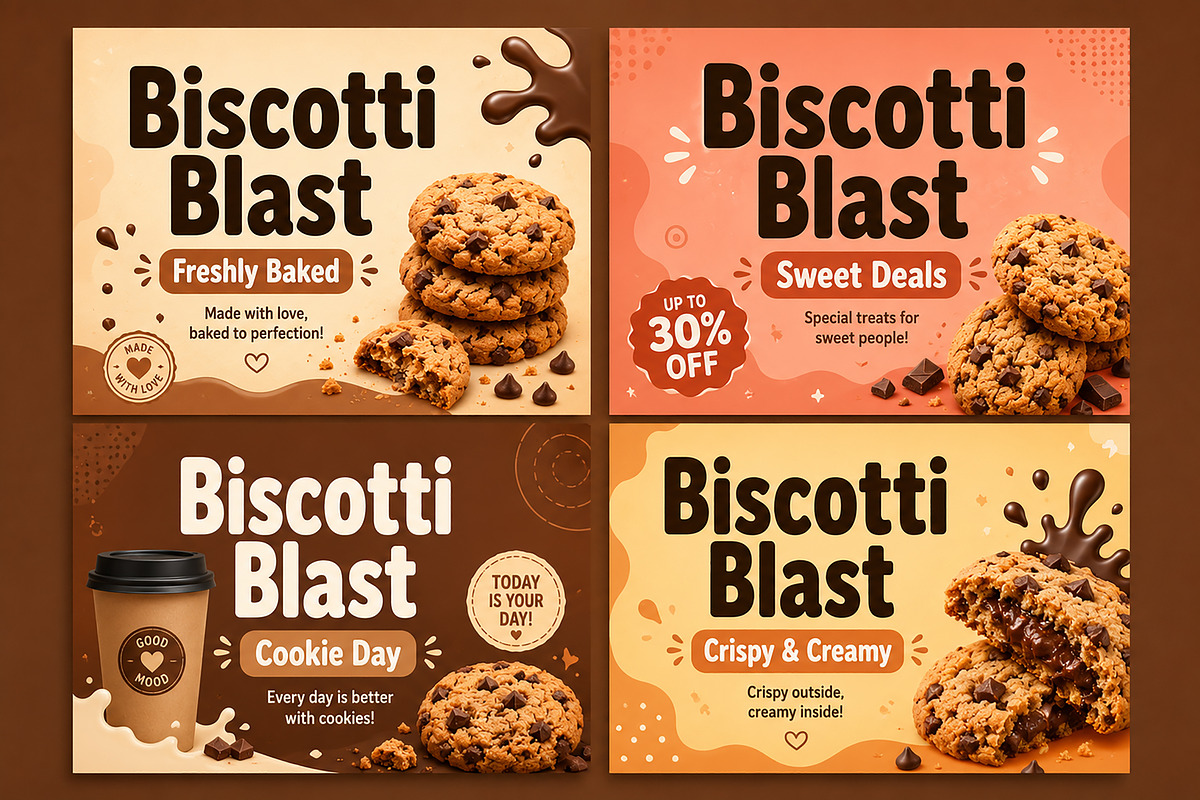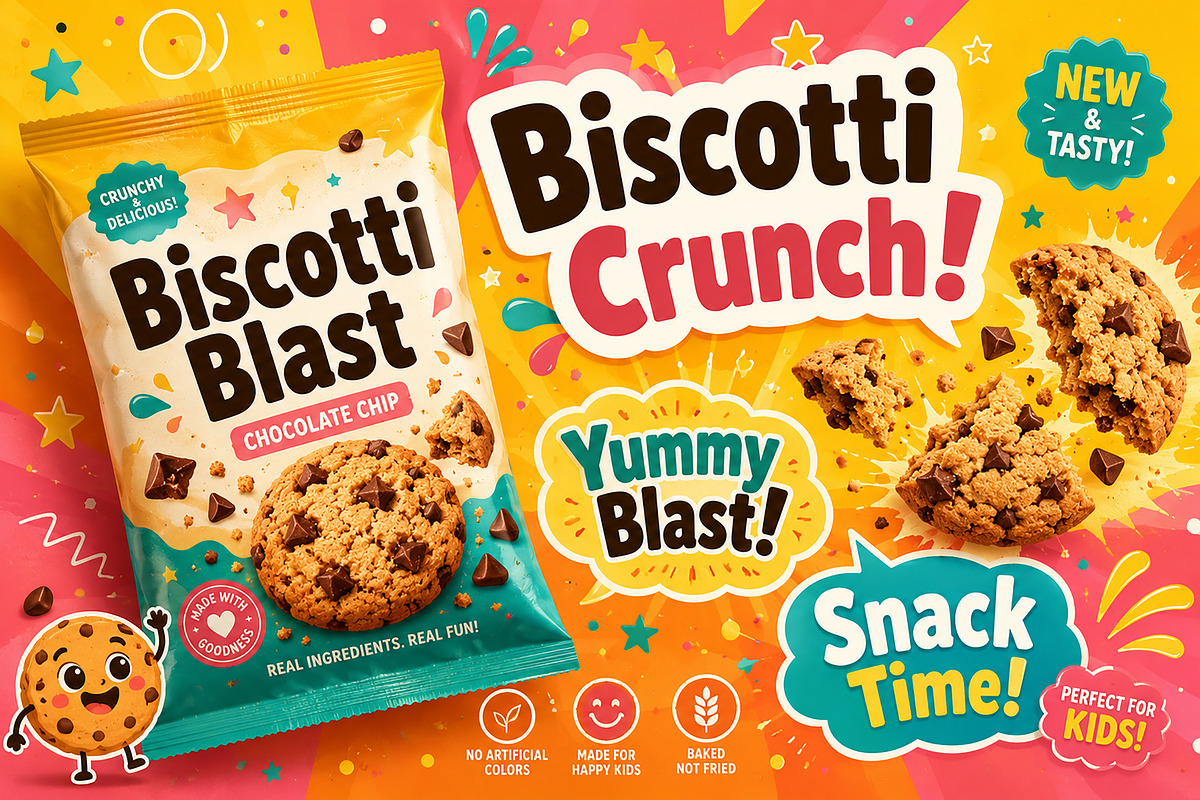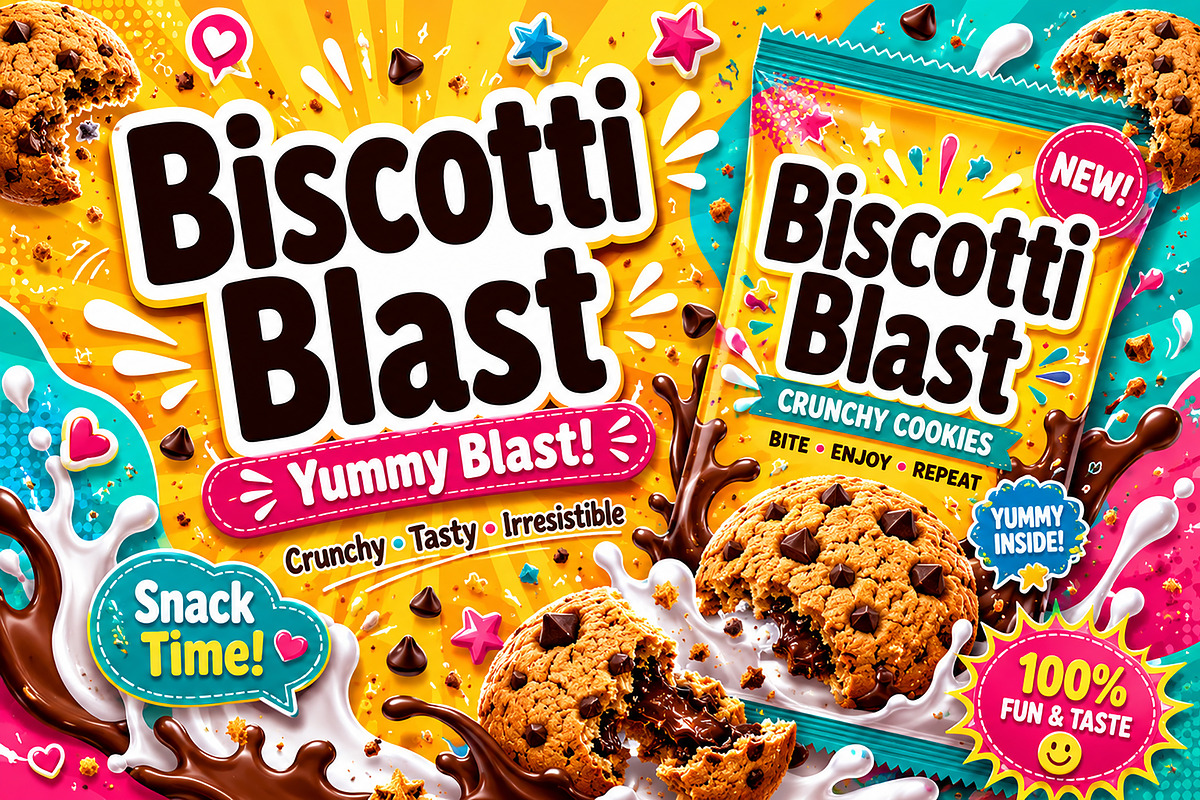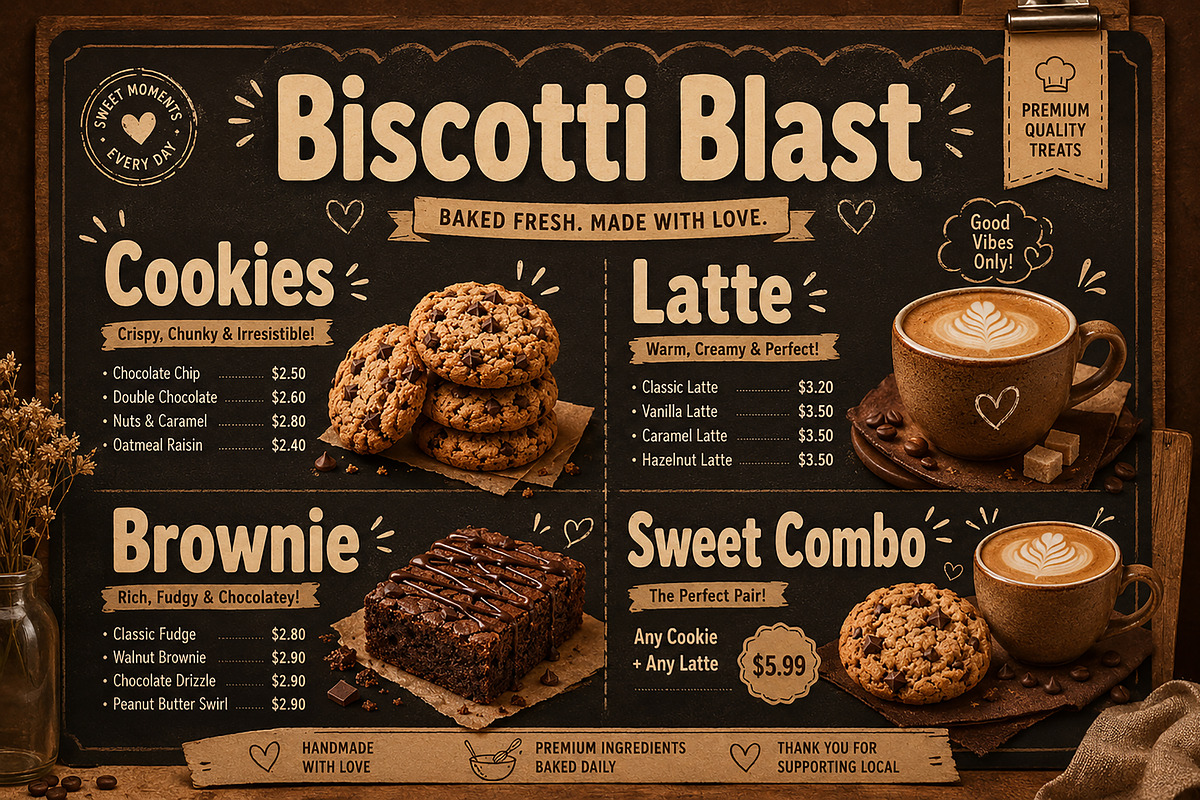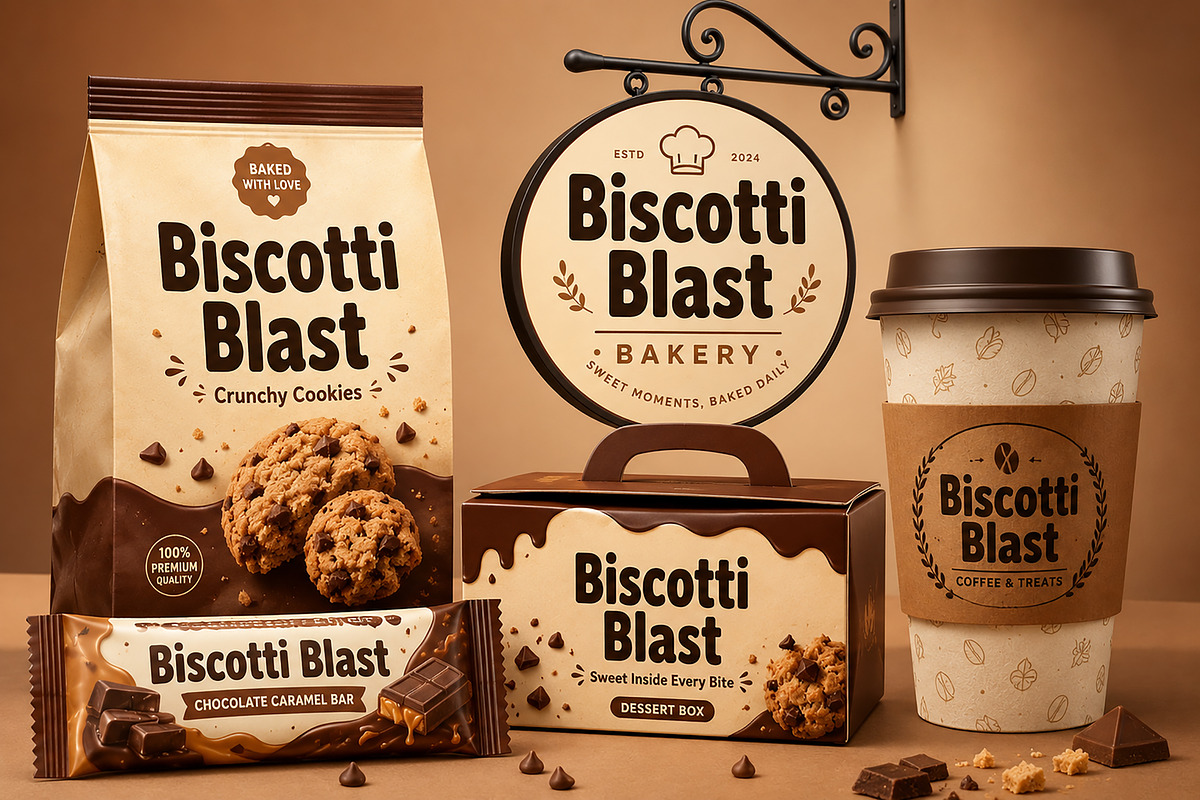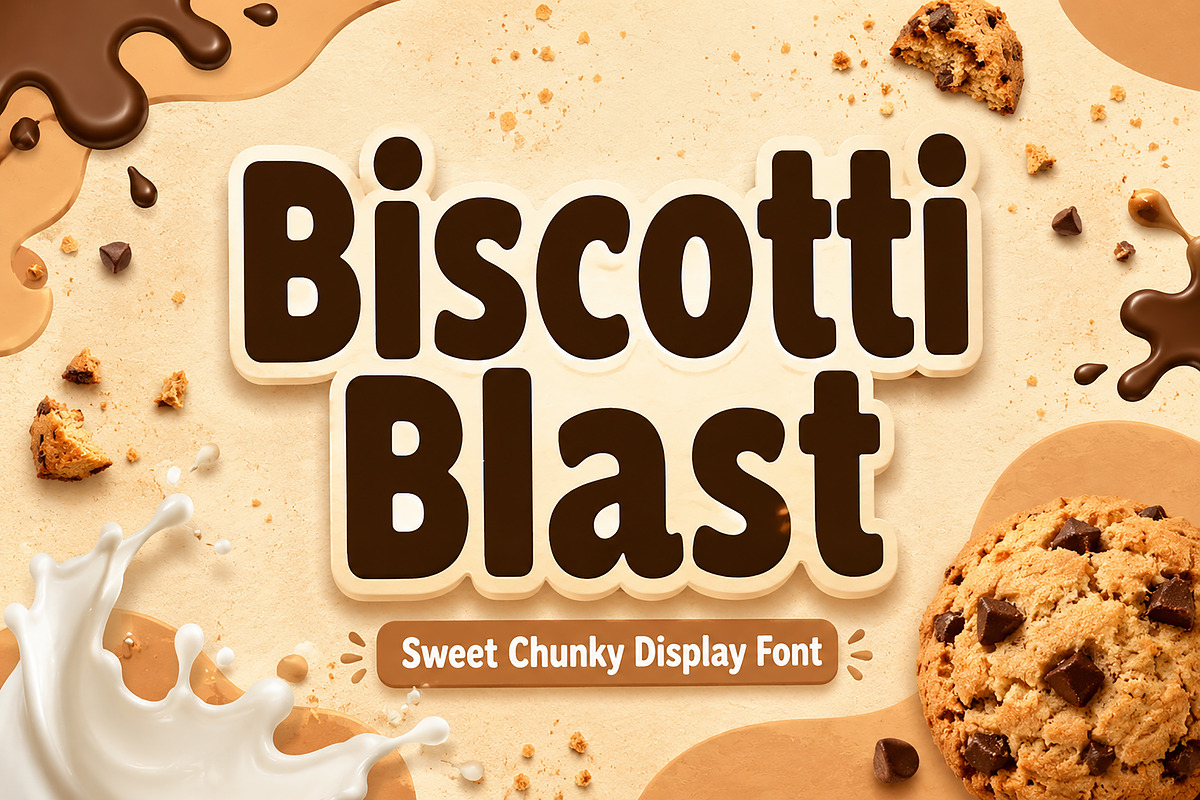
Biscotti Blast
Biscotti Blast is a sweet, chunky, and playful display font designed to bring warmth, fun, and personality into your creative projects. With its bold rounded shapes and soft edges, this typeface captures the cozy feeling of cookies, desserts, and handmade treats, making it perfect for food branding and cheerful designs.
Whether you’re creating bakery logos, cookie packaging, café menus, snack labels, or fun social media promotions, Biscotti Blast adds a deliciously bold touch that stands out instantly.
Its thick, friendly letterforms make it highly readable while keeping a cute and energetic vibe—ideal for kids’ products, dessert shops, food trucks, posters, and playful merchandise.
Bakery Branding
Cookie Packaging
Café Menus
Dessert Labels
Kids Snack Products
Candy Packaging
Social Media Posts
Food Posters
Merchandise Design
Stickers & Labels
YouTube Thumbnails
Greeting Cards
Biscotti Blast is crafted to make your designs feel warm, fun, and irresistibly eye-catching.